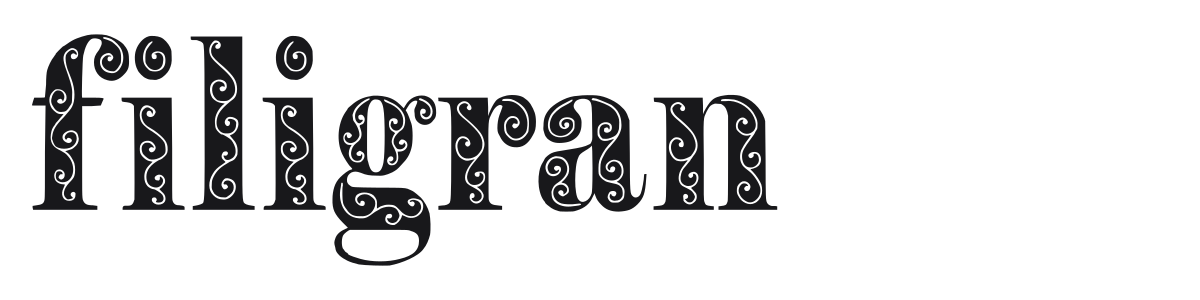
Filigran
Filigran is a decorative initials font from EvasUniqueFonts where each letterform is built from intricate filigree patterns, giving the characters a lace-like delicacy rooted in Victorian ornamental tradition. The patterned fills and serif structures make it purely a display face, best reserved for drop caps, monograms, and elegant headings where the detail can breathe at large sizes. There's a handcrafted, vintage quality to it that feels genuinely ornate rather than digitally generated.